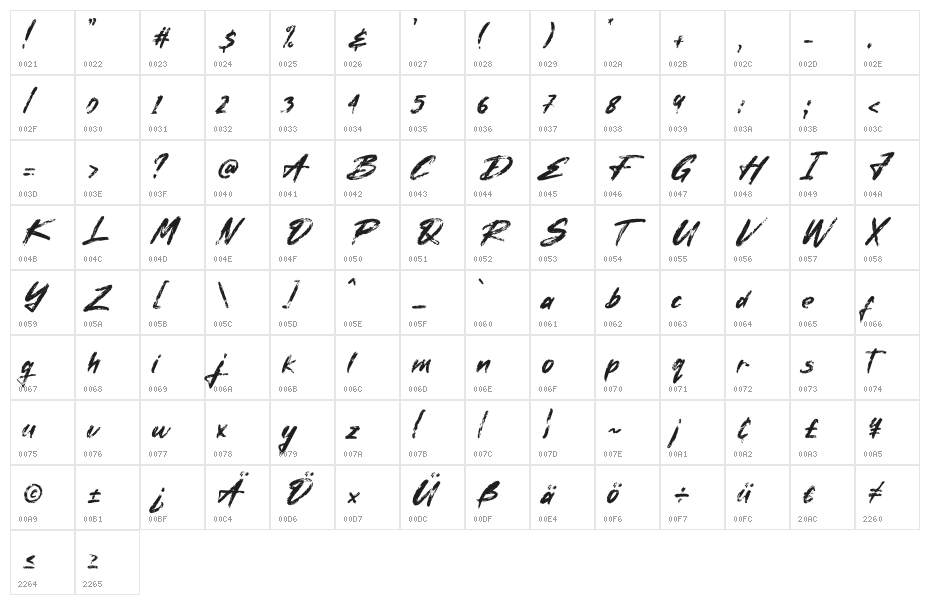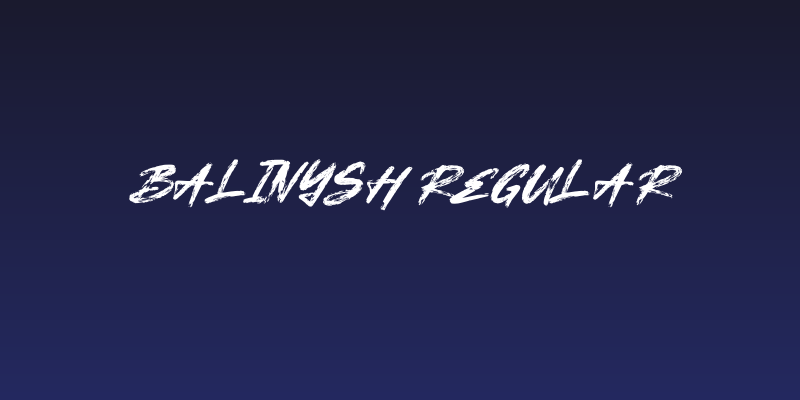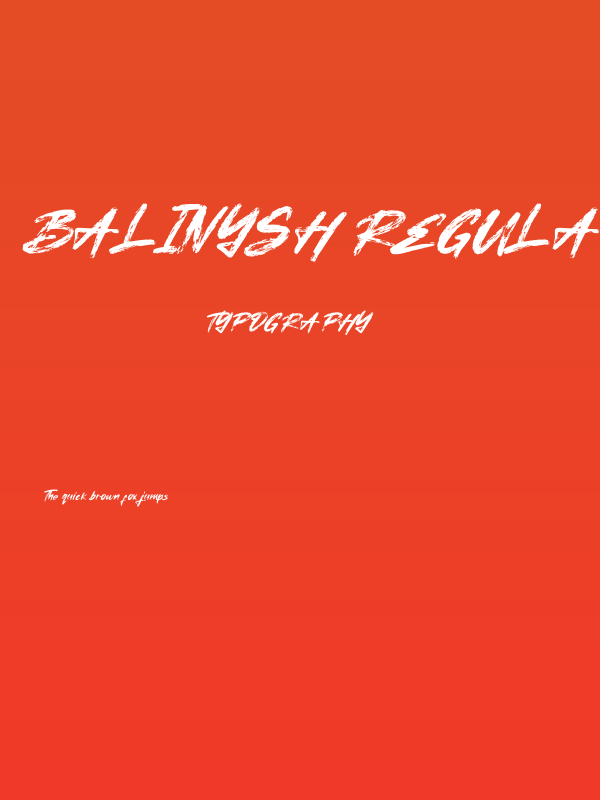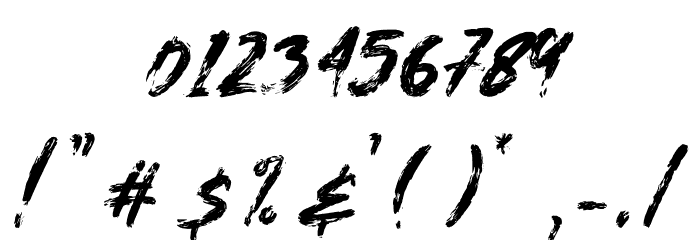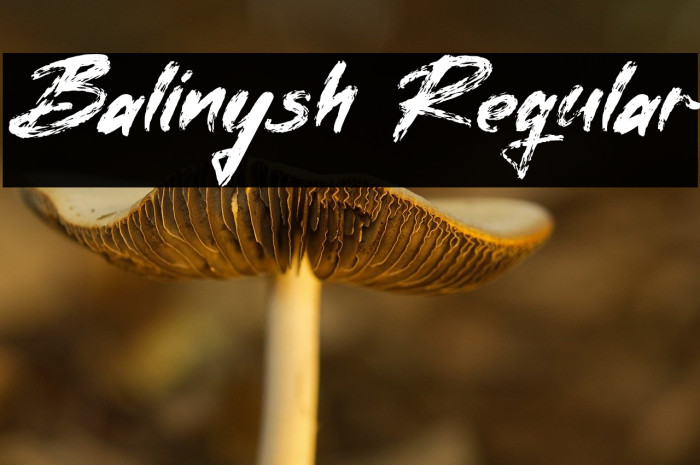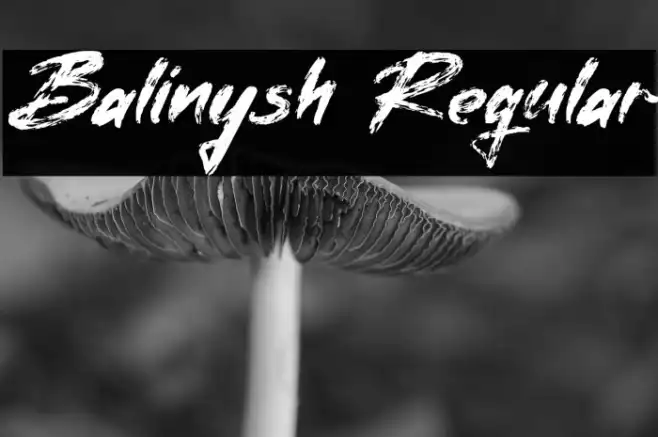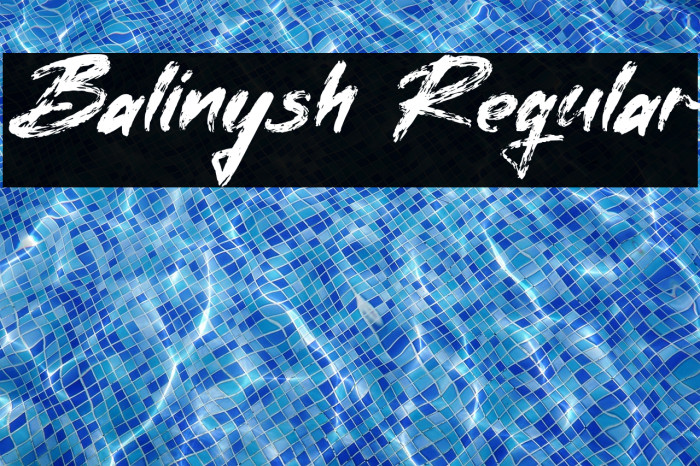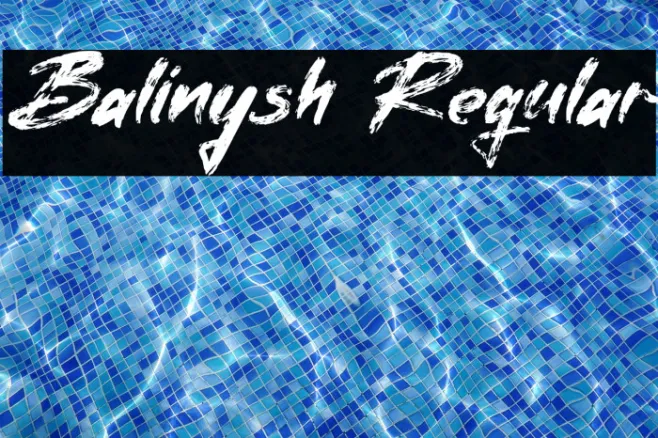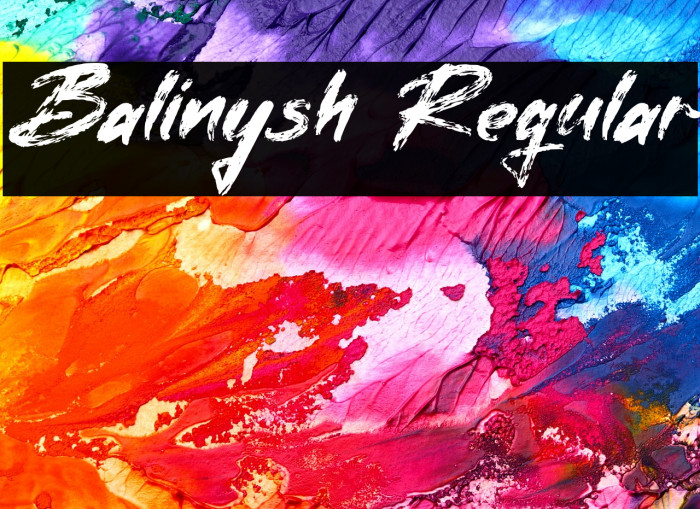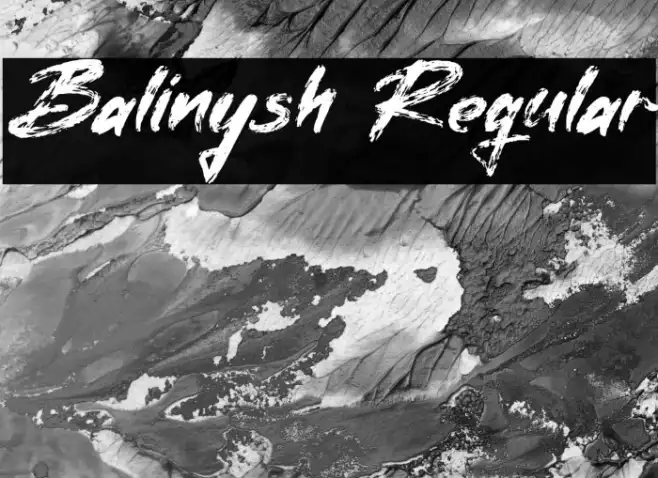
Balinysh Regular Font
Balinysh Regular Description
This font exhibits a bold, brushstroke style with a dynamic and energetic appearance. The characters have a hand-painted look, featuring irregular edges and varying stroke thicknesses that add a sense of movement and spontaneity. The uppercase and lowercase letters maintain a consistent style, with the uppercase being slightly more pronounced. Numbers and special characters follow the same aesthetic, ensuring a cohesive look across all glyphs. This font is ideal for projects that require a bold, artistic touch, such as posters, branding, or any design that aims to capture attention with a creative flair.
| Overall Style | Artistic, Dynamic |
| Proposed Projects | Ideal for posters, branding, artistic designs, and any project requiring a bold, creative touch. |